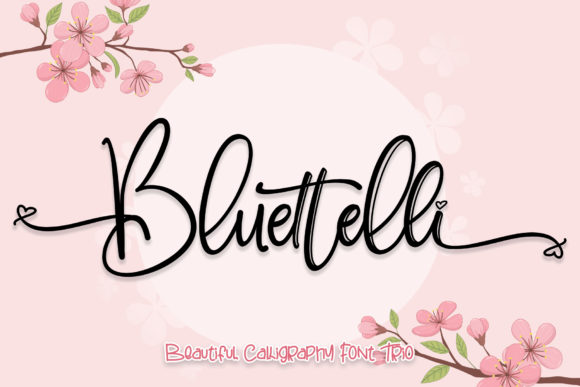
Introducing Bluettelli Font: Elevate Your Designs with Elegant Script Calligraphy
In the world of typography, fonts play a crucial role in conveying the tone and personality of a design. Among the numerous font options available, script calligraphy fonts have gained immense popularity for their elegance and sophistication. One such fantastic font trio that has caught the attention of designers is Bluettelli. This comprehensive article will delve into the world of Bluettelli Font, exploring its unique features, and how it can elevate your designs with its spectacular and friendly feel.
What is Bluettelli Font?
Bluettelli is a stunning font trio that combines three beautiful script calligraphy fonts. Each font in the trio is carefully crafted to provide a unique and elegant look, making them perfect for a wide range of design applications. Whether you’re working on a branding project, wedding invitation, or social media graphics, Bluettelli Font is sure to impress.
Key Features of Bluettelli Font
- Three Unique Fonts: Bluettelli Font consists of three distinct script calligraphy fonts, each with its own character and charm.
- Elegant and Sophisticated: The fonts feature beautiful swashes, flourishes, and letterforms that add an touch of elegance to any design.
- Highly Versatile: Bluettelli Font can be used for a variety of design projects, from logos and branding to invitations and social media graphics.
- Easy to Read: Despite its ornate nature, Bluettelli Font is highly legible, making it perfect for body text and headlines.
Benefits of Using Bluettelli Font
So, why should you choose Bluettelli Font for your next design project? Here are some benefits that make it an excellent choice:
- Adds Elegance and Sophistication: Bluettelli Font can instantly elevate your design with its elegant and sophisticated look.
- Creates a Friendly Feel: The font trio has a friendly and approachable feel, making it perfect for designs that require a personal touch.
- Standout from the Crowd: With Bluettelli Font, you can create designs that stand out from the crowd and leave a lasting impression.
How to Use Bluettelli Font in Your Designs
Using Bluettelli Font in your designs is easy and straightforward. Here are some tips to get you started:
- Pair with Other Fonts: Experiment with pairing Bluettelli Font with other fonts to create a unique and harmonious look.
- Use for Headlines and Body Text: Use Bluettelli Font for both headlines and body text to create a cohesive and elegant look.
- Customize and Edit: Don’t be afraid to customize and edit Bluettelli Font to fit your design needs.
Tips and Tricks for Getting the Most out of Bluettelli Font
To get the most out of Bluettelli Font, here are some additional tips and tricks:
- Experiment with Different Colors: Try pairing Bluettelli Font with different colors to create a unique and eye-catching look.
- Use for Various Design Applications: Don’t limit yourself to just one design application – use Bluettelli Font for a variety of projects, from logos to social media graphics.
- Combine with Graphics and Images: Combine Bluettelli Font with graphics and images to create a visually appealing design.
In conclusion, Bluettelli Font is a fantastic font trio that can elevate your designs with its elegant and sophisticated look. With its highly versatile nature, ease of use, and compatibility with various design software, Bluettelli Font is perfect for designers looking to add a touch of elegance and friendliness to their designs. So, why not give Bluettelli Font a try and experience the difference it can make in your designs?
- Is Bluettelli Font suitable for body text?
- While Bluettelli Font is elegant and sophisticated, it’s best suited for headlines and titles. For body text, consider using a more legible font.